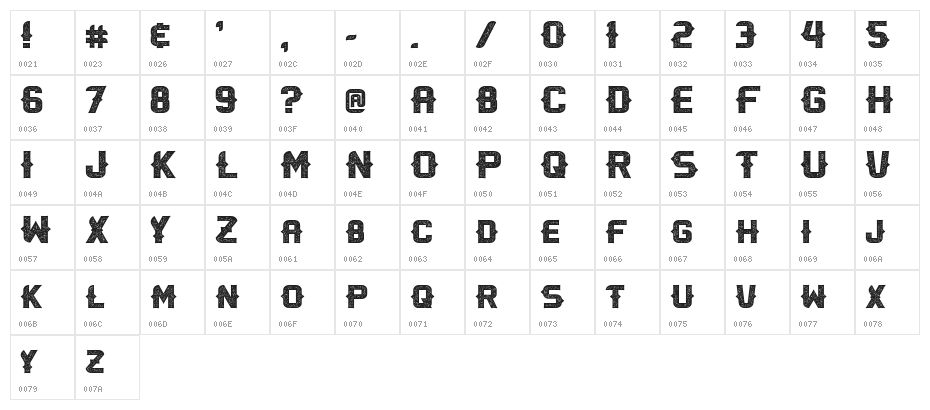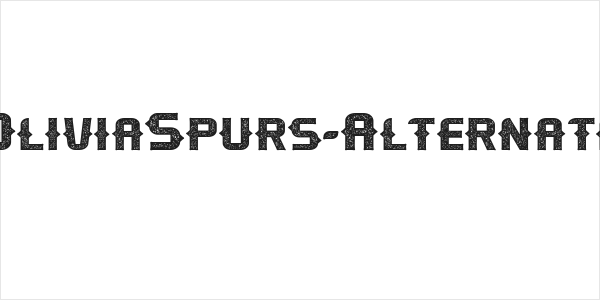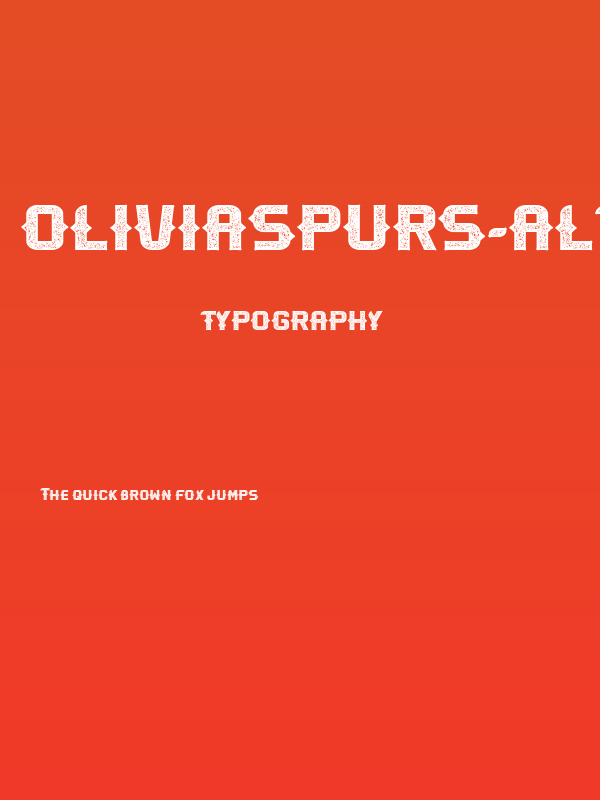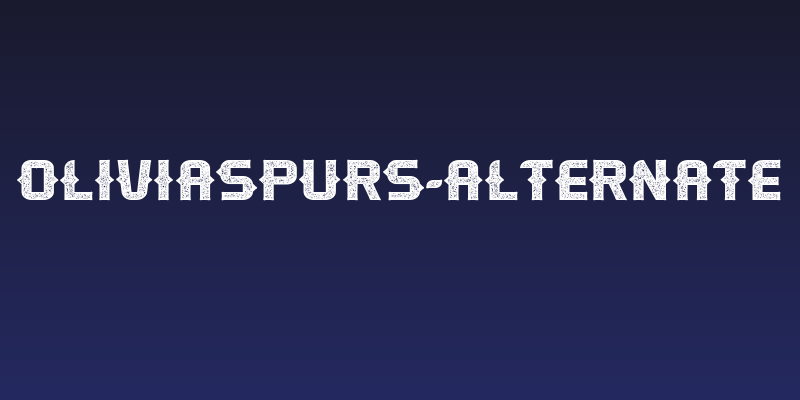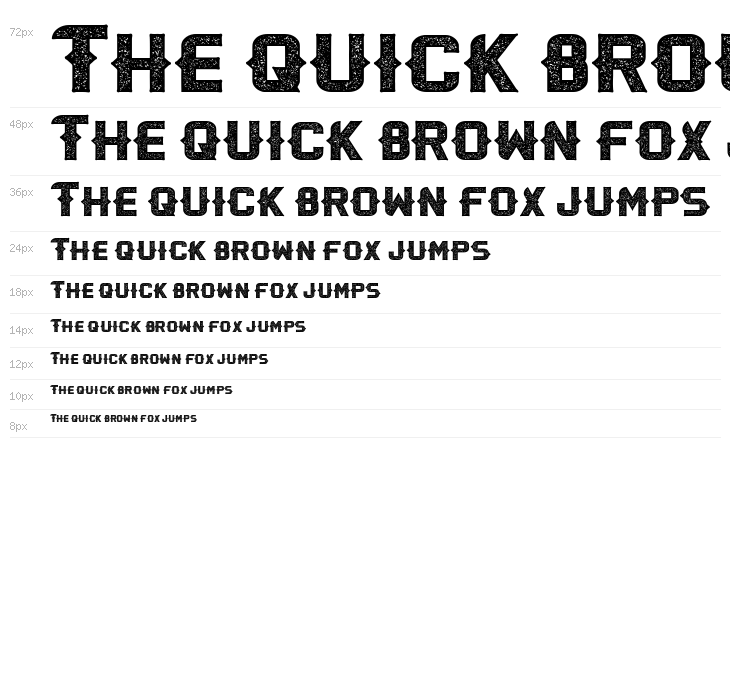
OliviaSpurs-Alternate Font
OliviaSpurs-Alternate Description
This font features a bold, decorative style with a textured, distressed appearance. The characters are blocky and robust, with unique cut-out details that add a sense of ruggedness and individuality. The uppercase and lowercase letters maintain a consistent design, emphasizing a strong, impactful presence. The numbers and special characters follow the same aesthetic, ensuring uniformity across all glyphs. This font's distinct style makes it ideal for projects that require a bold statement, such as posters, branding, and headlines.
| Proposed Projects | Ideal for posters, branding, headlines, and any project needing a bold, impactful statement. |